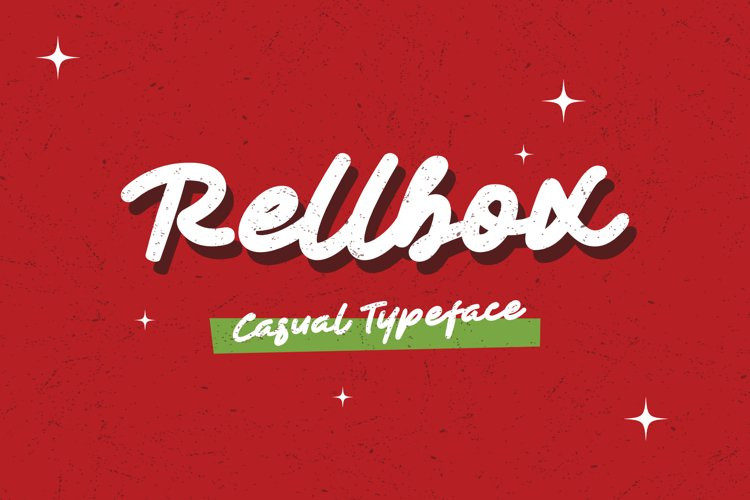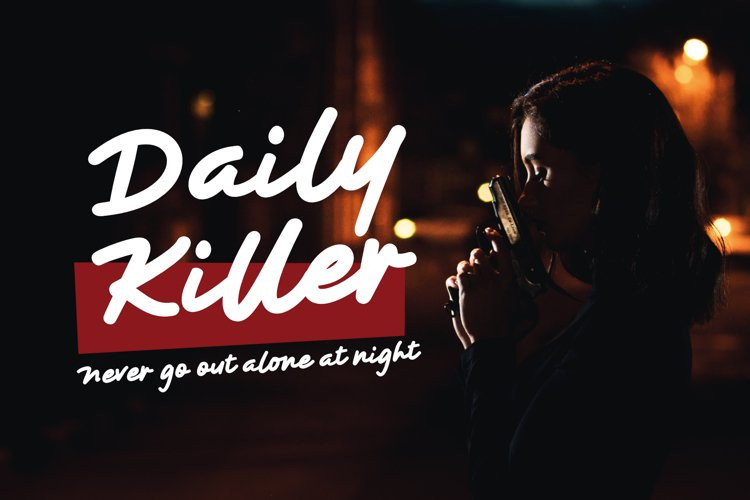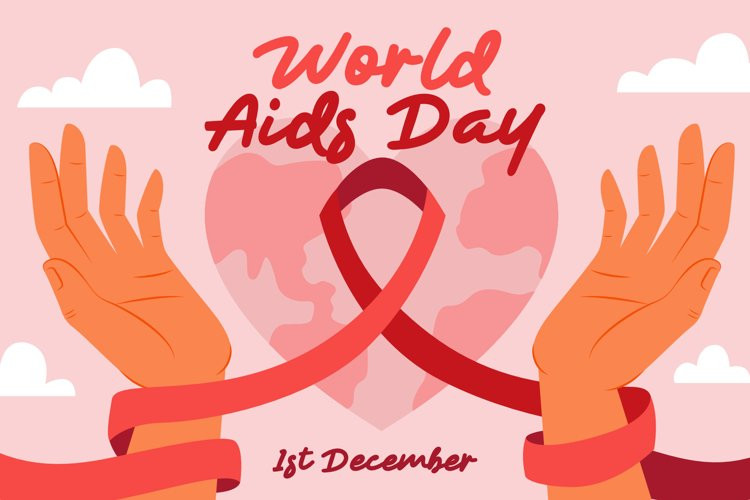
Rellbox Font
RellboxRellbox is a casual style font created with the brush pen tool, a simple but fun font to use as a daily project font. This font is very friendly for those of you who are working on design projects.
As the creator of this font, I recommend not using only capital letters because it will be ridiculous and unsightly. I suggest this font is perfect when used as movie titles, concert titles, quotes, book covers, event titles as you can see in the preview above.